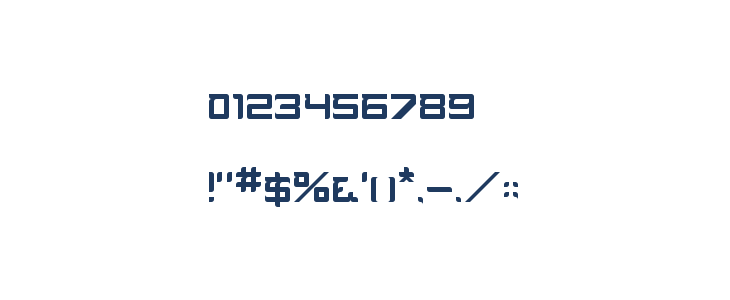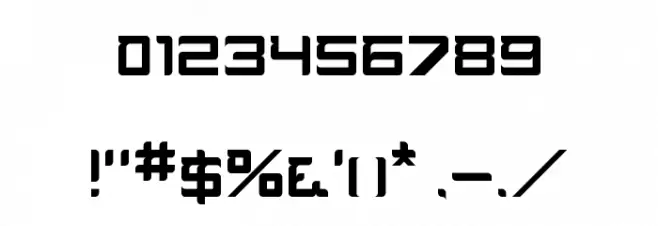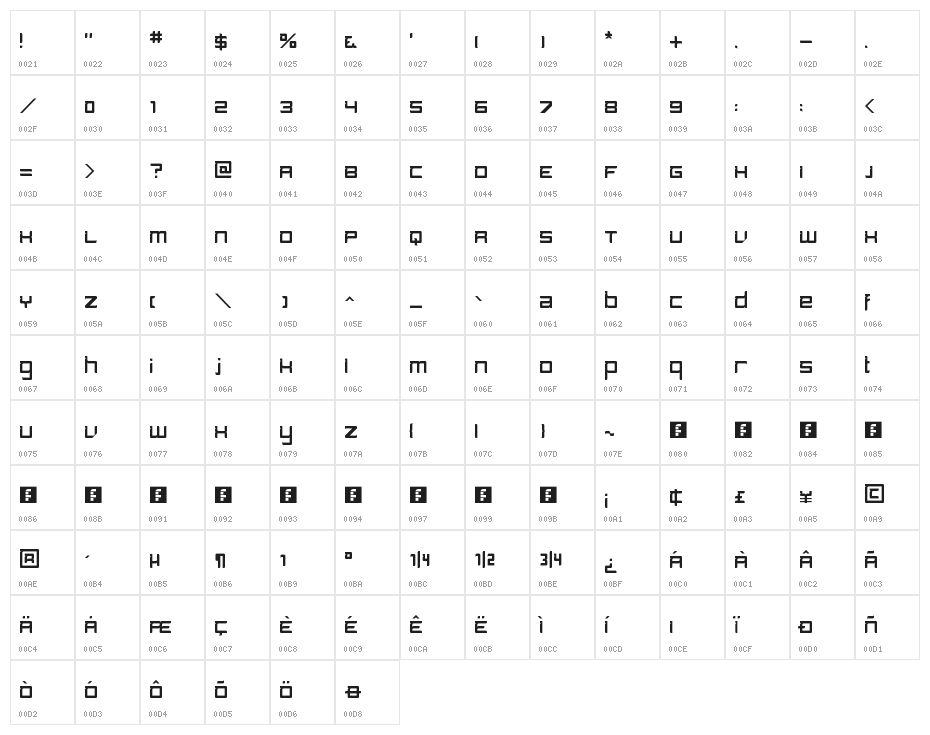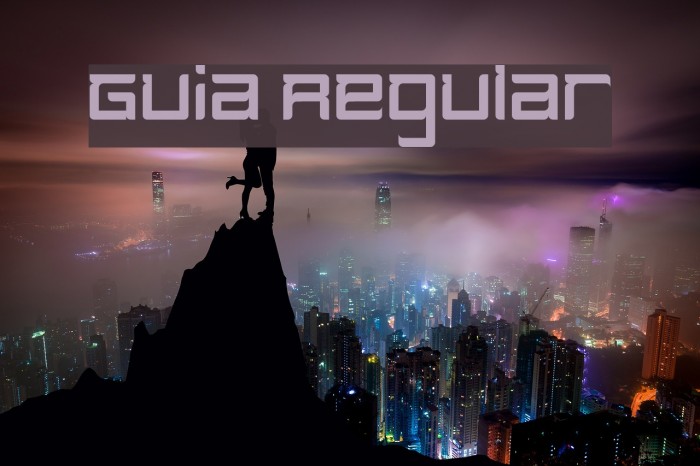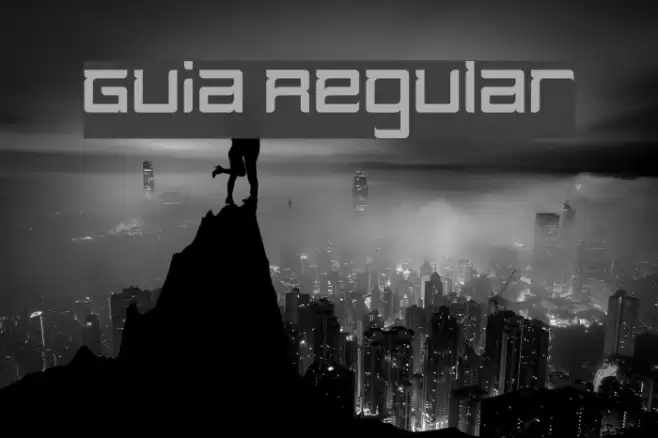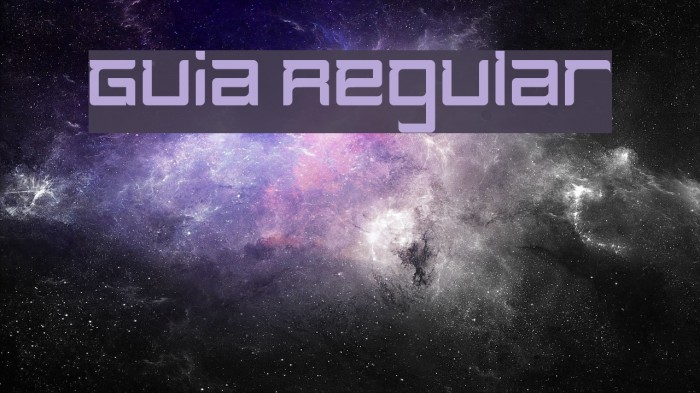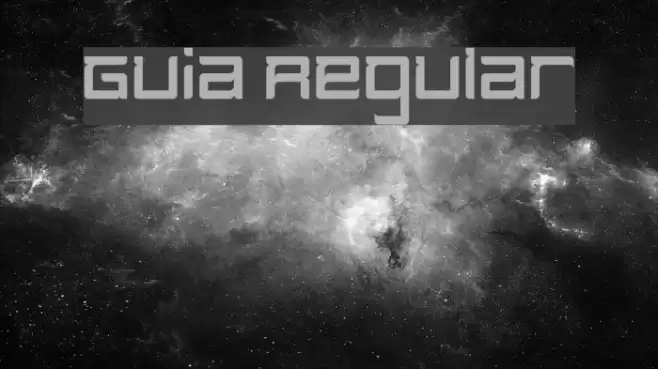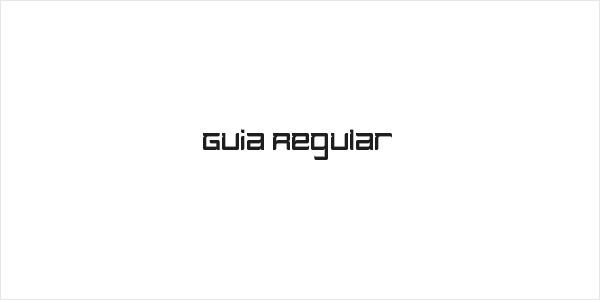
Guia Regular Font
Guia Regular Description
This font features a modern, geometric design with a distinct digital aesthetic. The characters are composed of straight lines and right angles, giving it a structured and futuristic appearance. The uppercase and lowercase letters maintain a consistent height, contributing to a uniform look. The numerals and special characters follow the same geometric style, ensuring cohesion across all elements. The font's clean lines and sharp edges make it ideal for projects that require a contemporary and tech-savvy feel.